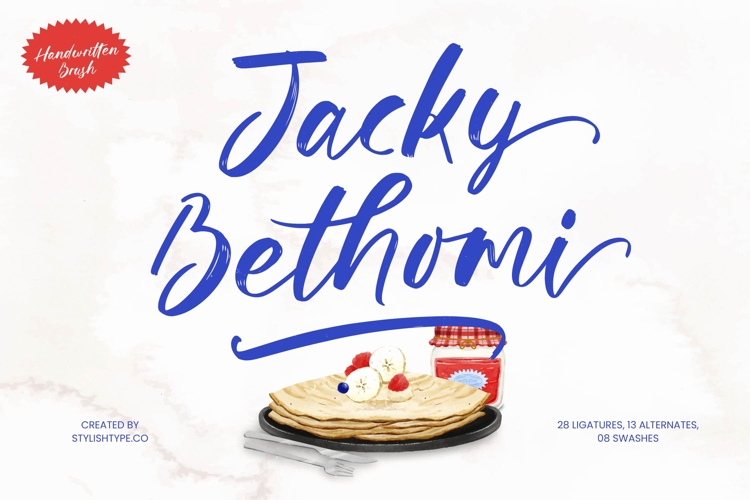
Jacky Bethomi - Handwritten Brush
Elevate your creative vision with a typeface that embodies raw energy and sophisticated flair. Jacky Bethomi - Handwritten Brush is a masterfully crafted expressive script that captures the authentic texture of hand-painted strokes. Its fluid motion and dynamic letterforms create an immediate sense of personality, ensuring that your headlines command attention with an unmistakable artistic touch.
Global reach is essential in the modern design landscape. With its extensive multilingual support, Jacky Bethomi - Handwritten Brush adapts seamlessly across global markets, making it incredibly versatile for international projects. Whether your brand is communicating in Europe, the Americas, or beyond, this font maintains its visual consistency and professional elegance across various languages and character sets.